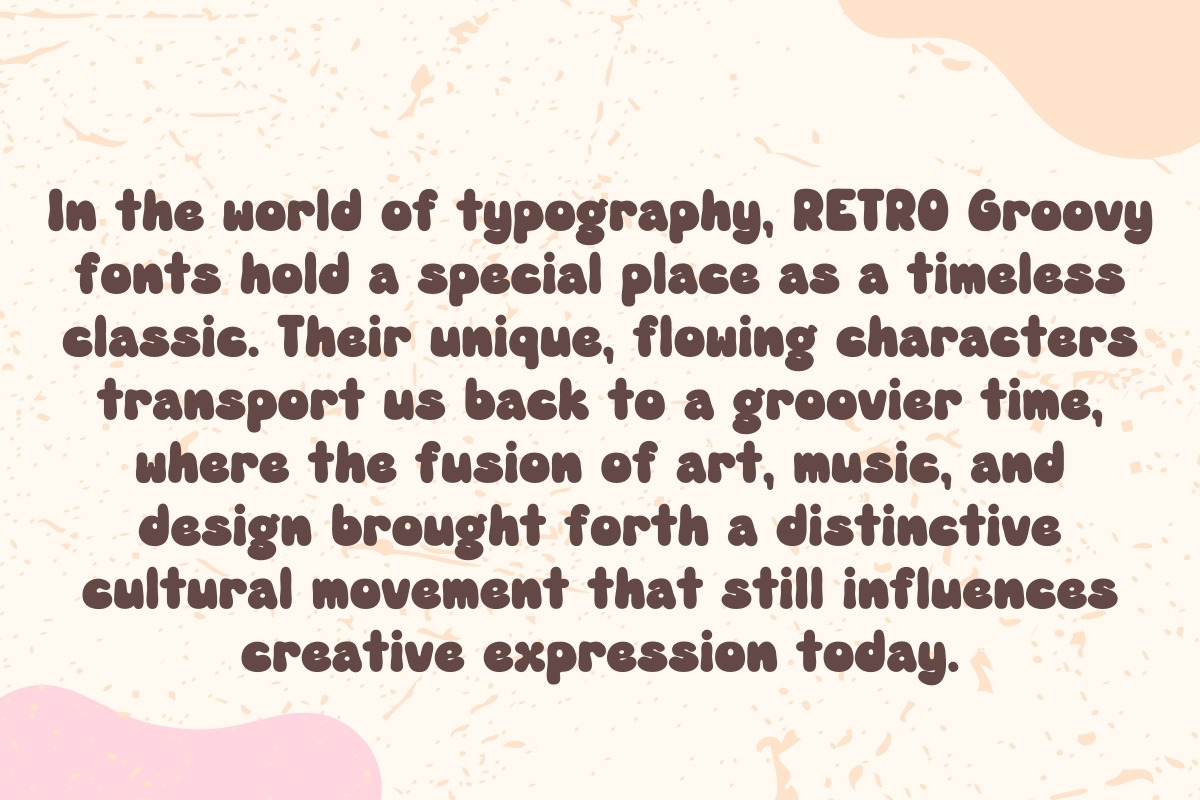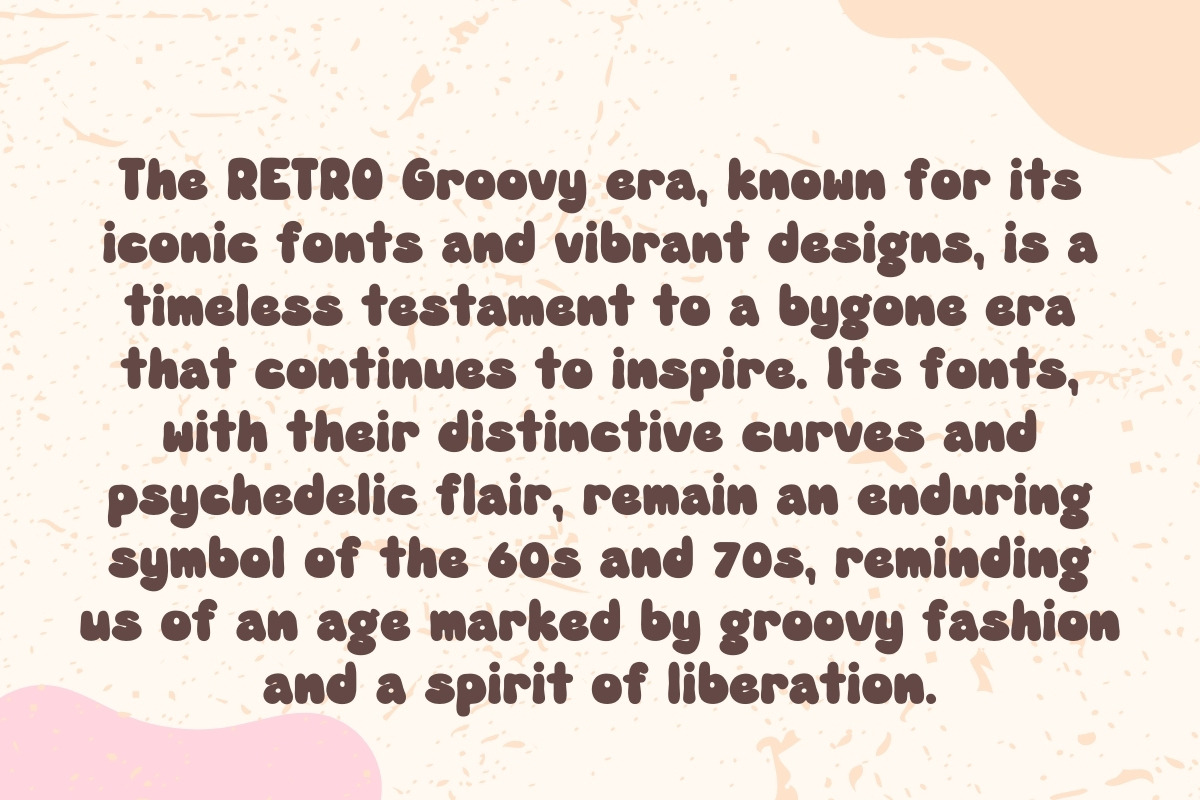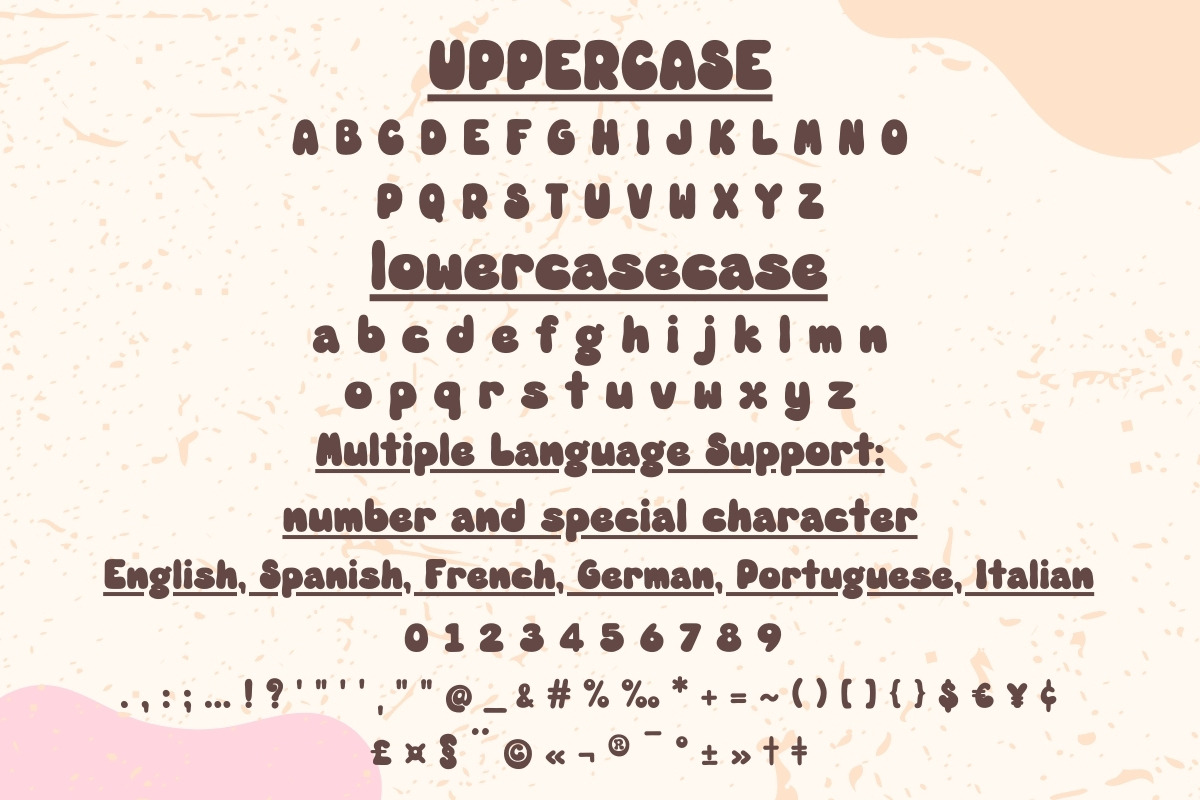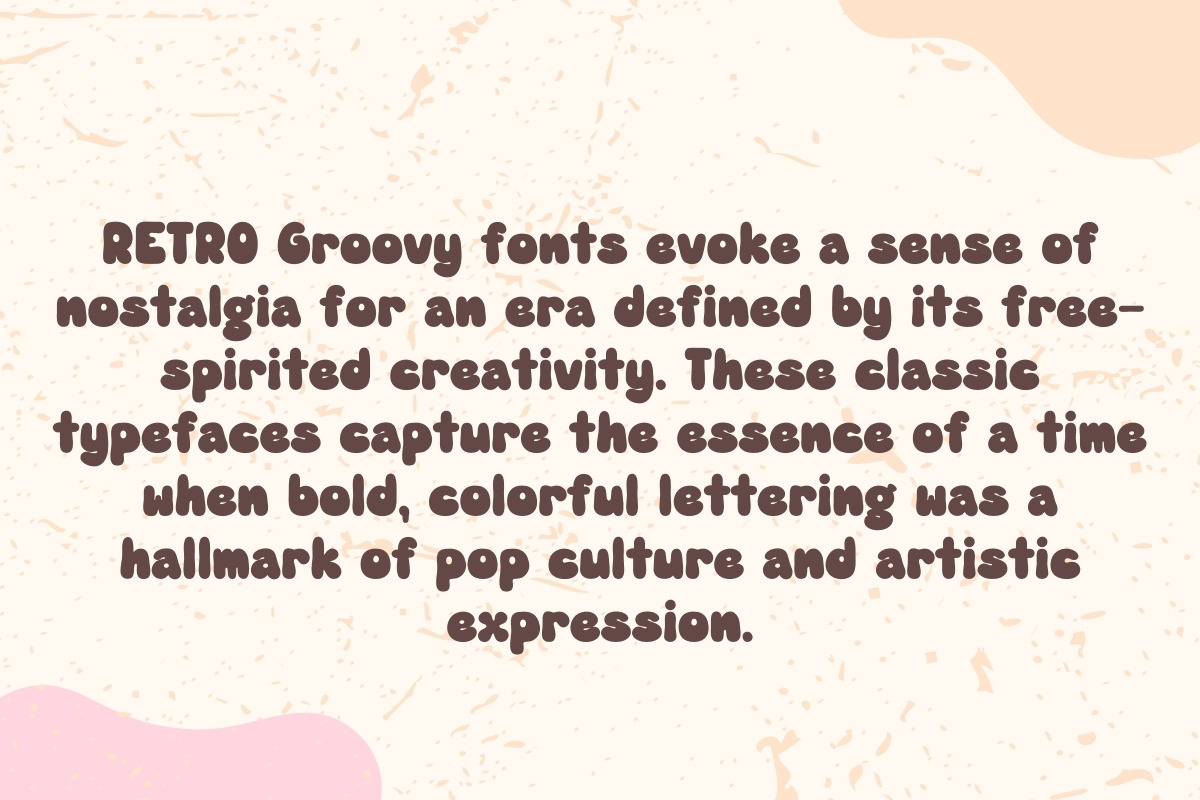
RETRO Groovy era - Handwritten
RETRO Groovy era font is a nostalgic journey back to an age marked by bold, lettering and a sense of liberation. Its unique characters and playful design elements transport us to a time when artistic expression knew no bounds. Whether you're designing posters, album covers, or retro-inspired branding, RETRO Groovy era font adds a touch of classic flair to your projects. Its timeless appeal ensures that it remains a favorite choice for those seeking to infuse their designs with the spirit of a groovier past.